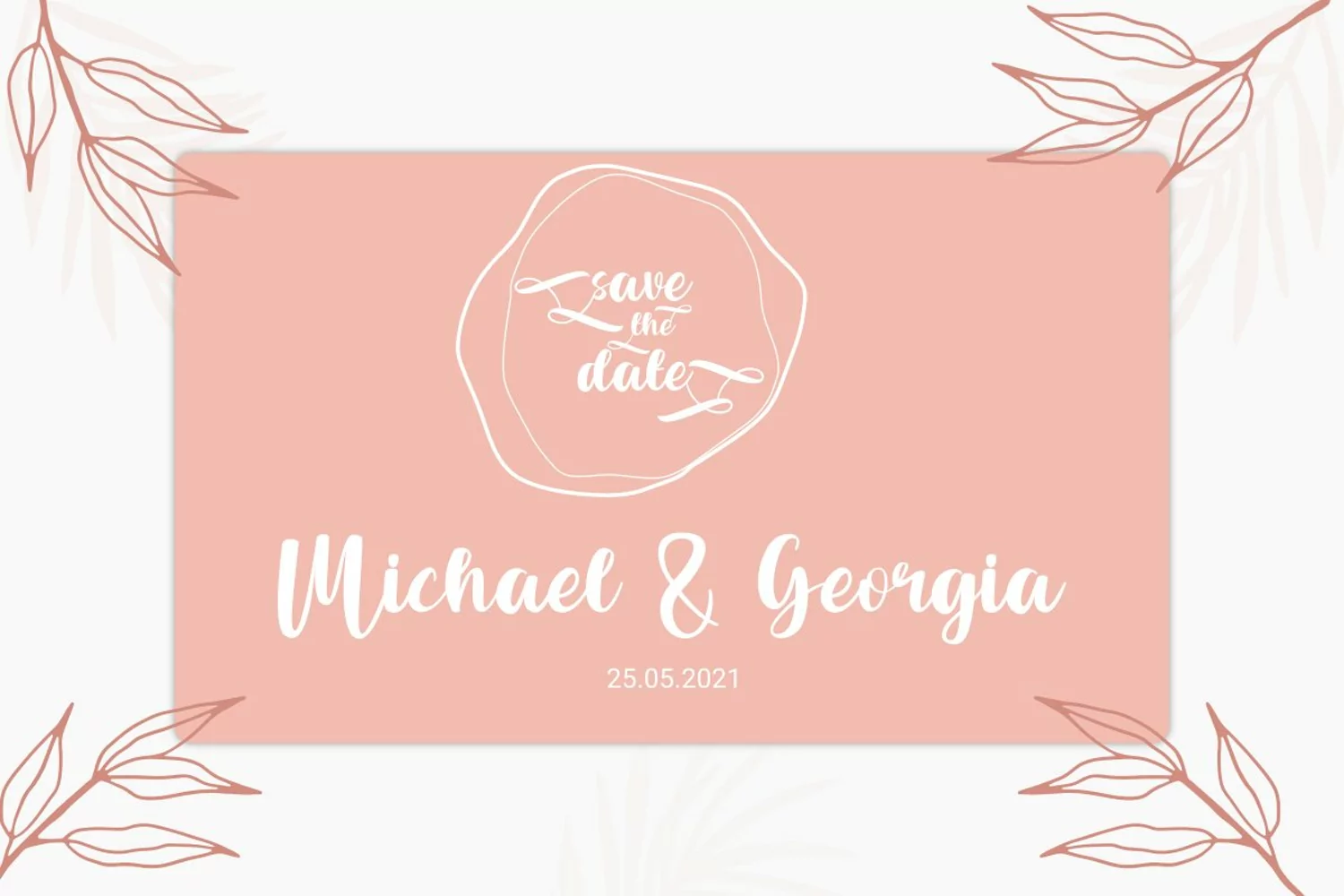
Always Grateful is modern calligraphy font. It has a elegant, and modern look which can be used for logos, branding, invitations, stationary, wedding designs, social media posts, and every other design.